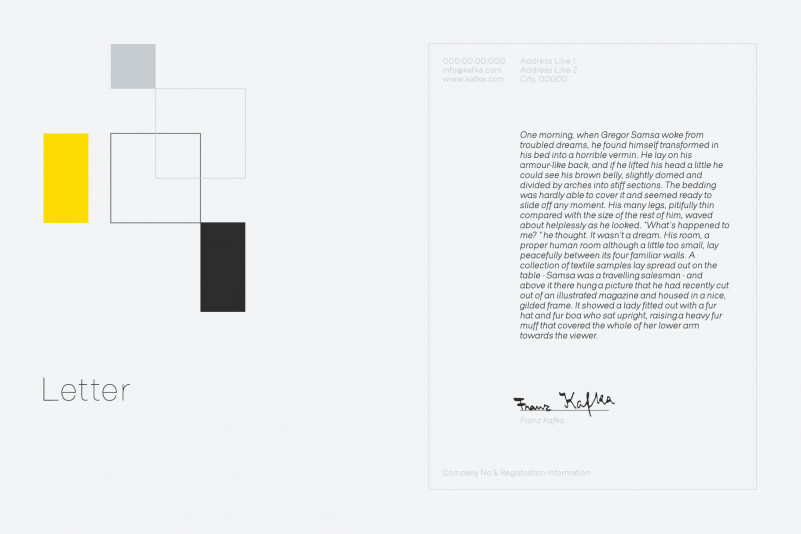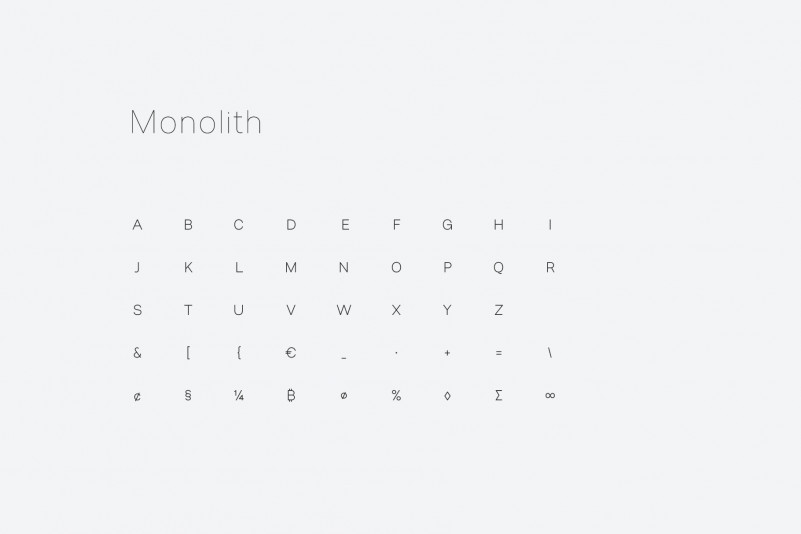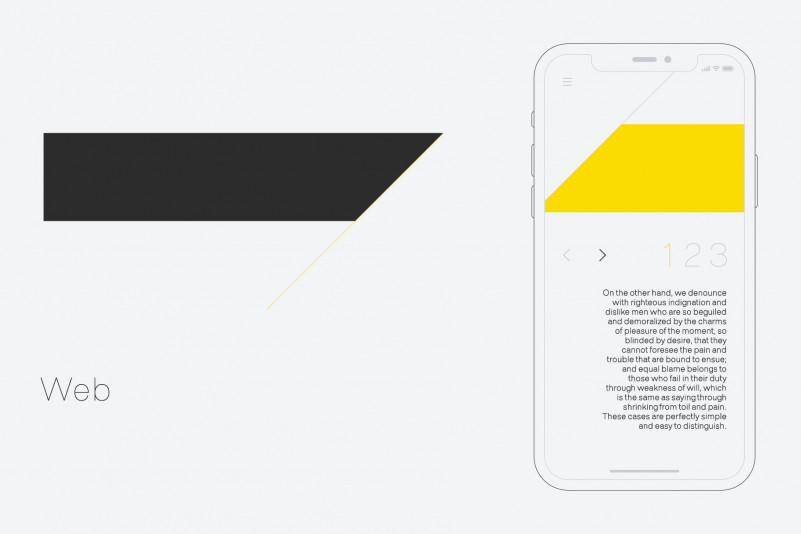
Monolith Sans Font Family
Introducing “Monolith Font Freebie” – a contemporary sans which focus on clarity and legibility.
Monolith Sans Font Family, in the commercial version, includes two contrasting versions: Light and Regular with corresponding true italics. This font family combine modernist shapes with slight grotesque touches. Each variant was designed with an attentive optical evaluation; curves, details and spaces were specifically tweaked to better suit the requirements of a highly-legible typeface.
The end result is a family with full multilingual capabilities and a coverage of several languages based on the Latin alphabet; It’s aims to become your next typographic companion.